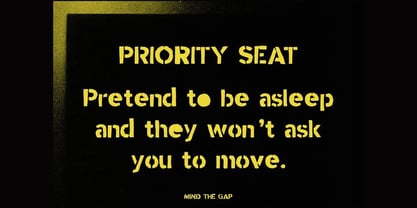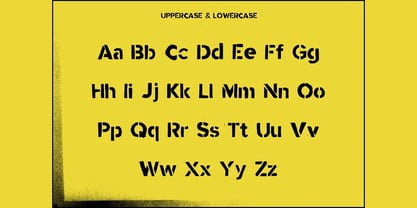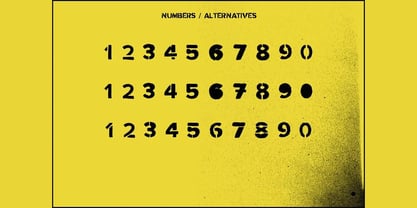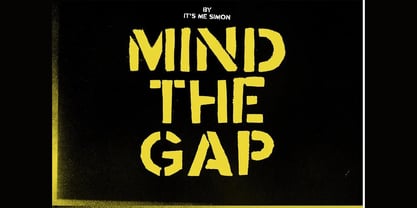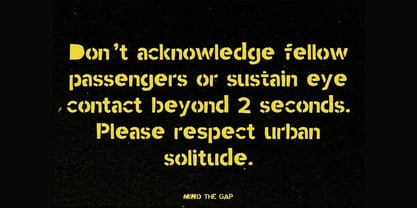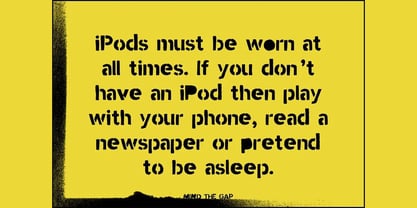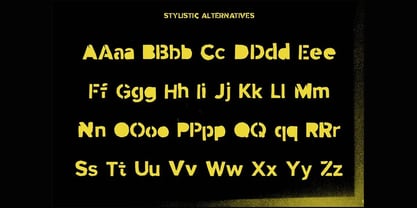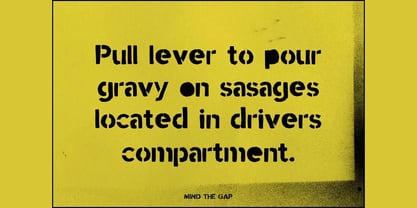
Mind The Gap
Die Schriftfamilie Mind The Gap wurde von Simon Stratford entworfen und von It's me Simon veröffentlicht. Mind The Gap enthält 1 Stile. Mehr über diese Familie
A modern stencil font Mind the Gap was born out of the frustration of the love/hate relationship I have with the daily commute in London.
I'm not sure if it's just a London thing or if the daily commute is hell in New York City, Paris, Madrid, Seoul, Shanghai, Beijing, Mexico City, Moscow, Tokyo and Berlin. And do they say "Mind the Gap"?
Stencil font mind the gap
The stencil font was created by hand cutting letter stencils and spraying them with black paint. This gives it an industrial, almost military look and feel.
It's deliberately not perfect. I wanted it to be dirty, so it looks more real and has a bit of personality.
Designer: Simon Stratford
Foundry: It's me Simon
Hello, I’m Simon Stratford, an independent type designer based in London. After spending more than 20 years in the design industry—including time at London branding and film agencies—I left the rat race to work for myself. For nearly a decade, I’ve been creating characterful retail fonts and bespoke typefaces for branding, advertising, packaging and entertainment. My work has been used by Reebok, ITV, Three, King and creative teams around the world. I’m drawn to lettering with personality: bold, distinctive type that refuses to disappear politely into the background. When I’m not designing fonts, you’ll usually find me painting, taking photographs, hunting for trainers, walking dogs or searching for a proper cup of coffee.